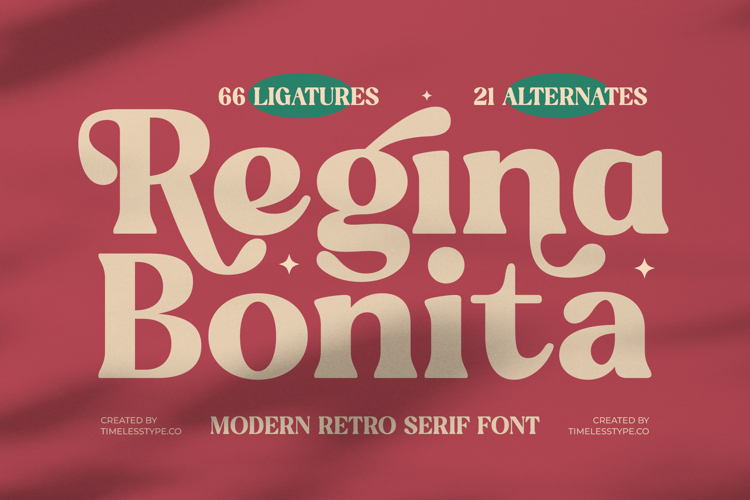
Regina Bonita - Modern Retro Serif Font
Unveil a world where retro elegance meets modern sophistication with Regina Bonita - Modern Retro Serif Font. This captivating typeface embodies a rich, warm aesthetic, featuring bold, curvaceous forms and distinctive serifs that command attention. Its high-contrast design ensures a captivating presence, perfect for conveying both warmth and refined luxury across any medium.
Unlock expressive versatility with Regina Bonita - Modern Retro Serif Font’s comprehensive OpenType features. Boasting an impressive 66 ligatures and 21 alternates, this font provides unparalleled creative freedom to craft truly unique typographic compositions. These stylistic sets allow for dynamic visual storytelling and bespoke design solutions, enhancing every design with a custom feel.
Elevate your projects to a premium level with the distinctive charm of Regina Bonita - Modern Retro Serif Font. It’s the perfect choice for luxury branding, high-end packaging, editorial design, fashion campaigns, and captivating headlines. This font is engineered to create a memorable visual identity that resonates with discerning audiences, making it ideal for products and services that demand an elegant, yet approachable, appearance.